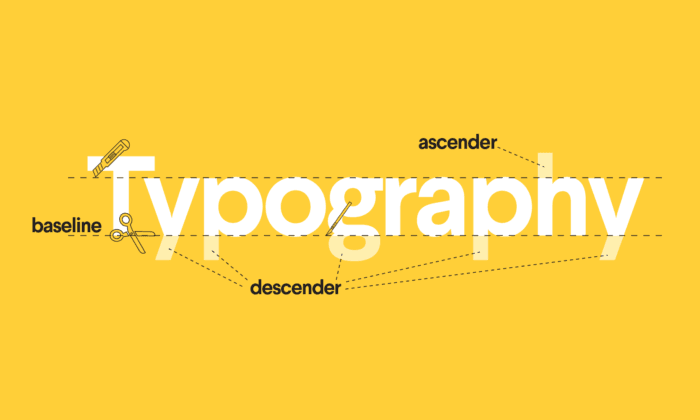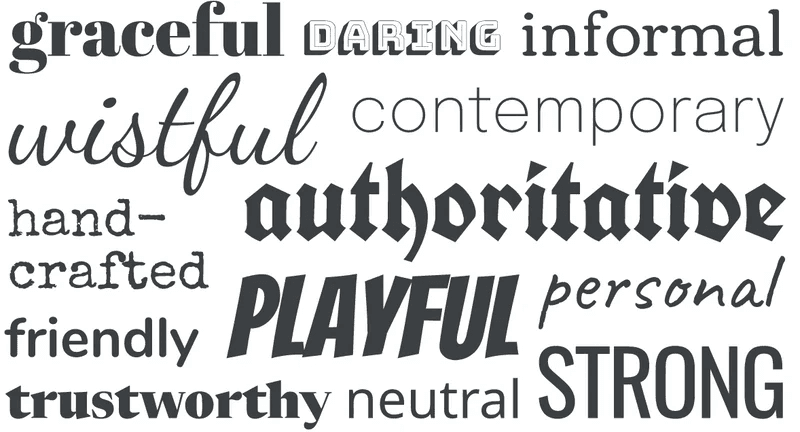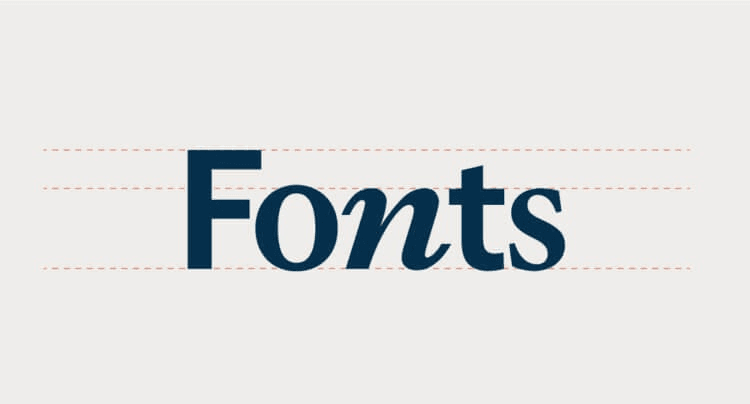
Great Fonts for Website Development: Good Web Fonts, Easiest Font to Read
Explore the best fonts for websites, from great fonts to awesome lettering fonts, and discover how typography can impact user experience, speed, and SEO in website development.
Great Fonts for Website Development: Good Web Fonts, Easiest Font to Read & Awesome Lettering Fonts
Typography stands at the core of website development, shaping how easily users can digest content, form impressions about a brand, and interact with online elements. In many ways, it can make or break the user experience. When browsing through good fonts for websites, the question often arises: which typefaces not only look appealing but also load quickly, boost readability, and even support SEO goals?
This comprehensive guide addresses these concerns, offering insight into choosing great fonts-ranging from the easiest font to read for paragraphs to awesome lettering fonts for branding flourishes. We'll also see why factors like load speed, device compatibility, and user psychology matter so much. By the end, you'll have a clearer path to selecting best fonts web solutions that elevate your digital presence and align with the expectations of modern web visitors.
The anatomy of great web fonts
Why Fonts Matter in Website Development: The Role of Typography
Fonts are more than a decorative choice; they bridge the gap between content creators and audiences. When developing a site, it's essential to see how fonts do more than convey text-they also communicate your brand's style, authority, and user-friendliness. If the text is too small or ornate, potential customers might leave before they've even read a single sentence. On the other hand, a well-chosen electronic font can make your site feel professional, welcoming, and intuitive.
Impact on User Experience
Research consistently shows that typography has a tangible effect on how people perceive and engage with content. A 2012 study discovered that users are more likely to trust information presented in a clear, easily scannable typeface, compared to content styled in a cramped or fussy font. Whether you're discussing a blog post or an e-commerce product description, the appearance of text can either build trust or raise doubts.
A study by The Readability Consortium found that switching to a more appropriate typeface for the reader resulted in a 35% boost in reading speed. Faster reading often translates to higher comprehension and engagement-crucial metrics in any web design strategy.
Influence on Branding and Credibility
Imagine a law firm's website set entirely in a whimsical, cartoon-like font. Visitors might question whether they're dealing with a serious, professional outfit or a casual side project. In contrast, a playful brand might lose its fun edge if it uses a stiff, formal typeface. The takeaway is simple: fonts convey your brand's character, so they must match your overall tone.
Readability in Digital Environments
"Readability" in the online world is often measured by how quickly and comfortably people can scan through paragraphs without fatigue. Some fonts, especially those designed for print, may not translate well to screens. Hence, it's vital to pick easy to read fonts that remain clear on various display sizes and pixel densities-laptops, tablets, smartphones, and more.
SEO and Performance Benefits
Search engines aim to connect users with content that satisfies their queries and keeps them engaged. If your site's typography is so poor that visitors bounce quickly, you could see a negative impact on your rankings. Plus, large font files can slow page load times, which in turn can harm user satisfaction and Google's performance-based algorithms.
All these factors make typography central to website development. By understanding how fonts influence user perception, branding, and even SEO, you set the foundation for more impactful content delivery.
Great Fonts for Websites: What Makes a Font "Good" for the Web?
When you hear about great fonts or good fonts for websites, you might envision a blend of visual appeal and functional clarity. But what precisely sets a good digital typeface apart from a mediocre one? Generally, the following characteristics define a quality typeface for online use:
1. High Legibility
Fonts intended for screens should maintain clear letter shapes at various sizes, especially smaller ones.
2. Balanced Weight and Spacing
Proper kerning and letter spacing help prevent visual clutter, enabling eyes to move smoothly across lines of text.
3. Versatile Styles
Having multiple weights (e.g., Light, Regular, Bold) can be a huge boon, letting you differentiate headings from body text without adding multiple separate fonts.
4. Cross-Platform Compatibility
A font that behaves consistently across browsers and devices is crucial in an era where visitors might switch from a phone to a laptop within hours.
Ultimately, the best approach is to experiment, gather feedback, and iterate. Evaluate how your selected fonts perform in real-world conditions-monitor bounce rates, page timings, and user responses. As your website evolves, so can your typography strategy, staying current with emerging trends while respecting tried-and-true best practices. So whether you aim for a clean, minimalist look or prefer the dynamic energy of awesome lettering fonts, keep in mind that typography is an ever-adapting facet of website development that merges technology, aesthetics, and user psychology in a single, compelling package.